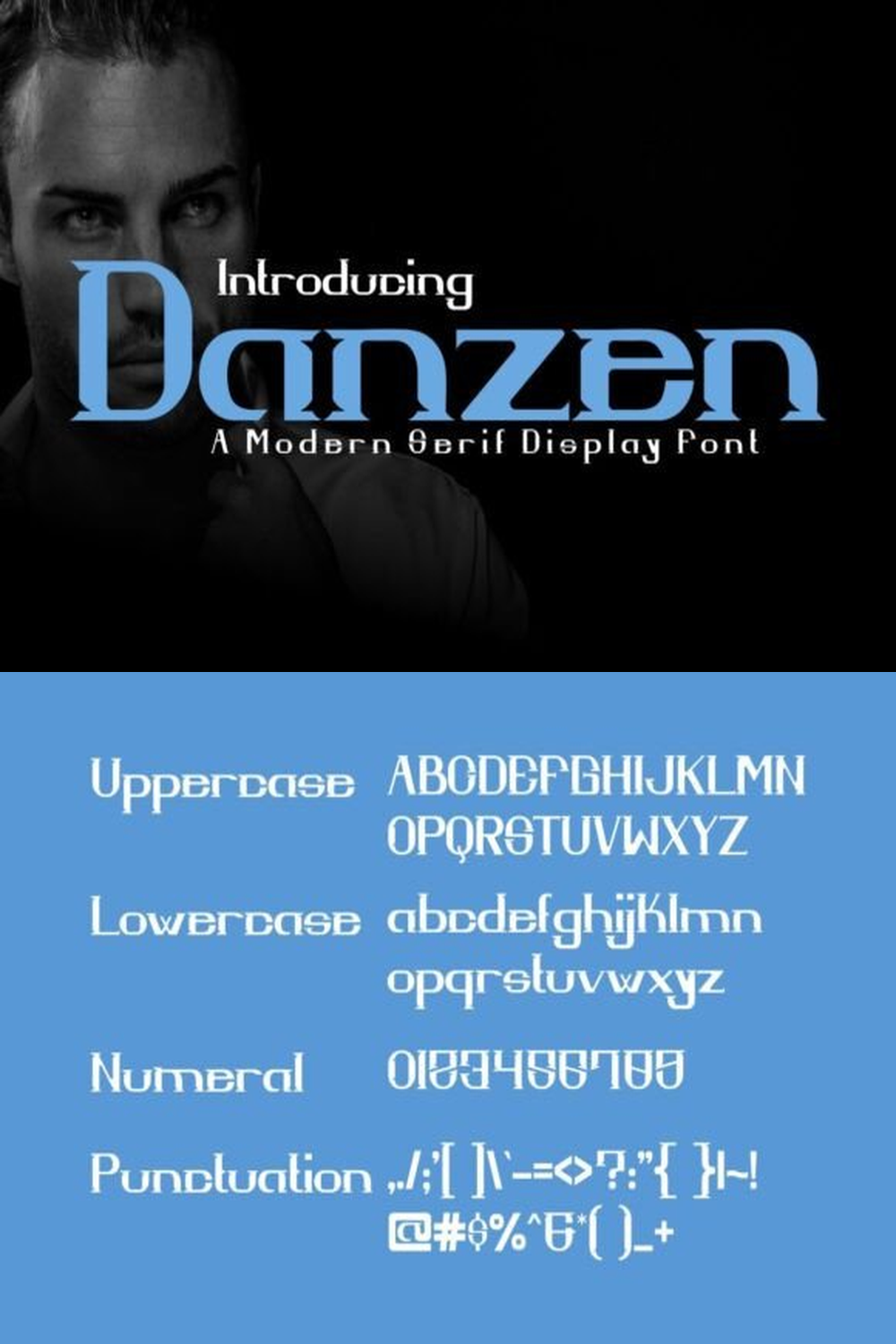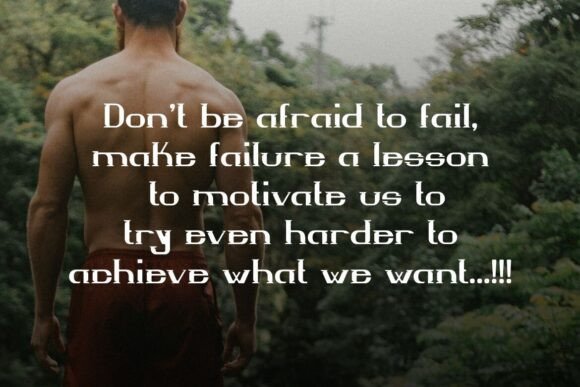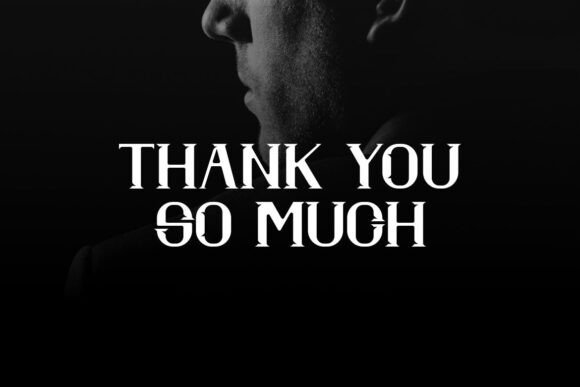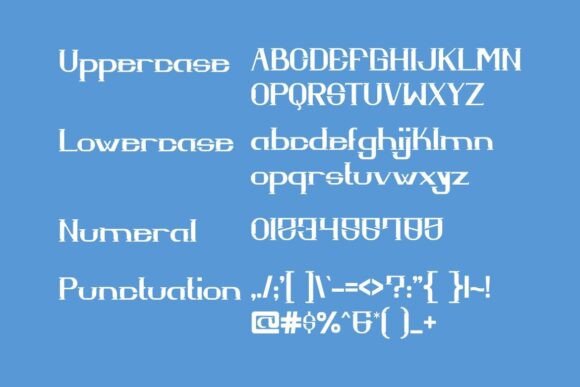
Danzen Font: Bold Futuristic Serif for High-Tech Logo Design
About the Danzen Font
Experience the unique personality of Danzen Font, a font designed for impact. Danzen is a bold, futuristic serif display font that blends classical structure with sci-fi aesthetics. Its sharp serifs and symmetrical strokes give it a confident, masculine presence perfect for modern branding, high-tech posters, and editorial layouts. Danzen delivers high impact with a stylish, minimal touch.
Danzen excels in headlines, logos, and short impactful text for technology brands, science-fiction themed projects, or products emphasizing innovation and strength. Its strong geometry makes it unsuitable for body text or lengthy passages; readability suffers at smaller sizes. Avoid using it in user interfaces where legibility is paramount.
Pairing Danzen with a clean sans-serif like Open Sans for body copy provides excellent contrast and readability. For a more sophisticated feel, consider a geometric sans-serif such as Futura or a subtle serif like Garamond for supporting text. These pairings allow Danzen’s bold character to shine while maintaining visual harmony.
The overall personality of Danzen is powerful and modern, conveying a sense of authority and technological advancement. It’s ideal for brands seeking to project confidence, innovation, and a futuristic aesthetic.